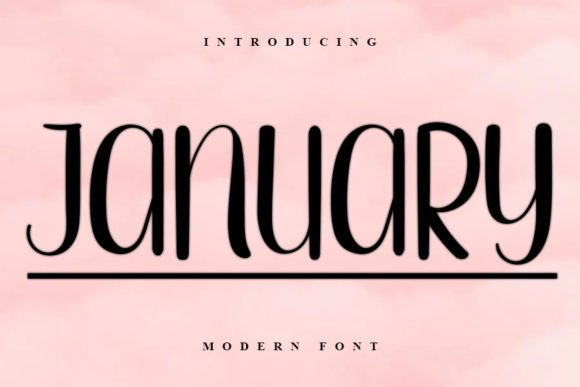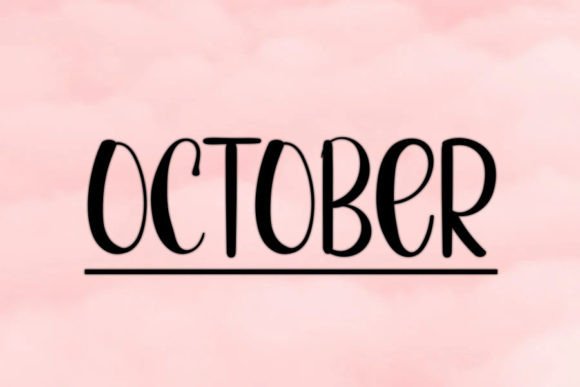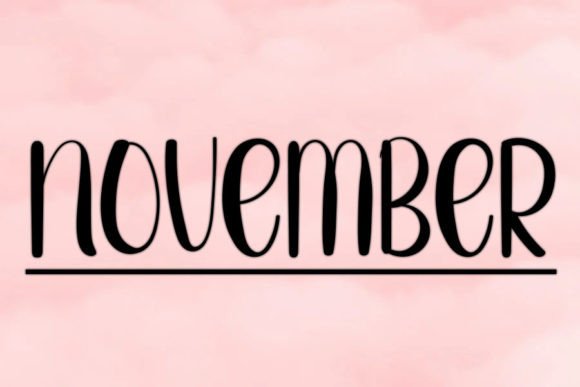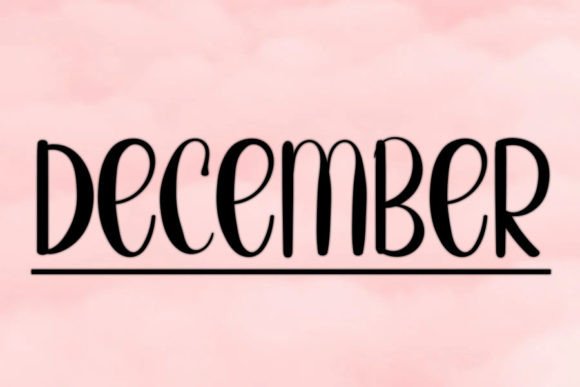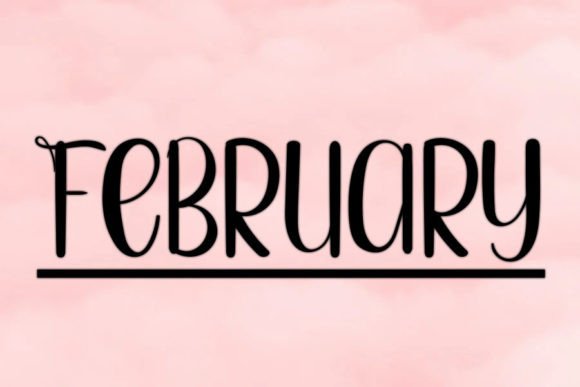
About January Font
A Charming and Elegant Handwritten Font
The January Font combines charm and elegance in a handwritten script that is perfect for a variety of design projects. Whether you’re creating wedding invitations, thank you cards, or greeting cards, this font adds a personal touch to your designs. Its refined, flowing style makes it an ideal choice for anything that requires a handwritten appearance.
If you’re designing for special occasions, the January Font is a must-have. Its elegant style is perfect for wedding invitations, thank you notes, and greeting cards. The font’s graceful lines and sophisticated appearance make it ideal for designs where a personal, handwritten touch is desired.
Ideal for Logos and Business Cards
The January Font is also perfect for logos and business cards. Its elegant yet readable script ensures your logo stands out while maintaining a professional appearance. This font’s versatility allows it to work seamlessly in both formal and informal branding, making it an excellent choice for businesses that want to convey a personalized, creative image.
A Handwritten Touch for Every Design
No matter what kind of project you’re working on, the January Font adds a special handwritten charm. Whether you’re designing quotes, social media posts, or any other creative project, this font elevates your design with its unique handwritten style. Its timeless elegance ensures that your work will stand out and make a lasting impression.
Versatile for Multiple Applications
From greeting cards to logos, the January Font is incredibly versatile. Its delicate script works well across various design applications, including branding, stationery, magazines, and even advertisements. Whether you’re creating a personal or professional design, the January Font enhances the overall aesthetic with its beautiful, flowing script.
Perfect for Personal and Professional Use
Whether for personal projects, like thank you cards and invitations, or for business purposes, like business cards and logos, the January Font adds a touch of personality and professionalism. It’s the perfect blend of formal and personal design, making it ideal for a variety of purposes.
Easy to Use and Accessible
The January Font is also user-friendly. It is designed to be easily accessible, so you can use it with minimal effort. Whether you’re a seasoned designer or just starting, you’ll appreciate how easy it is to incorporate this font into your projects. The clean, flowing lines of the font make it visually appealing and readable, ensuring your designs look polished and professional.
Elevate Your Designs with Elegance
If you’re looking to add a handwritten touch to your designs, the January Font is the perfect choice. Its charming, elegant script will elevate any project, from wedding invitations to business cards. Whether for personal or professional use, this font ensures that your designs stand out with a unique, beautiful style.